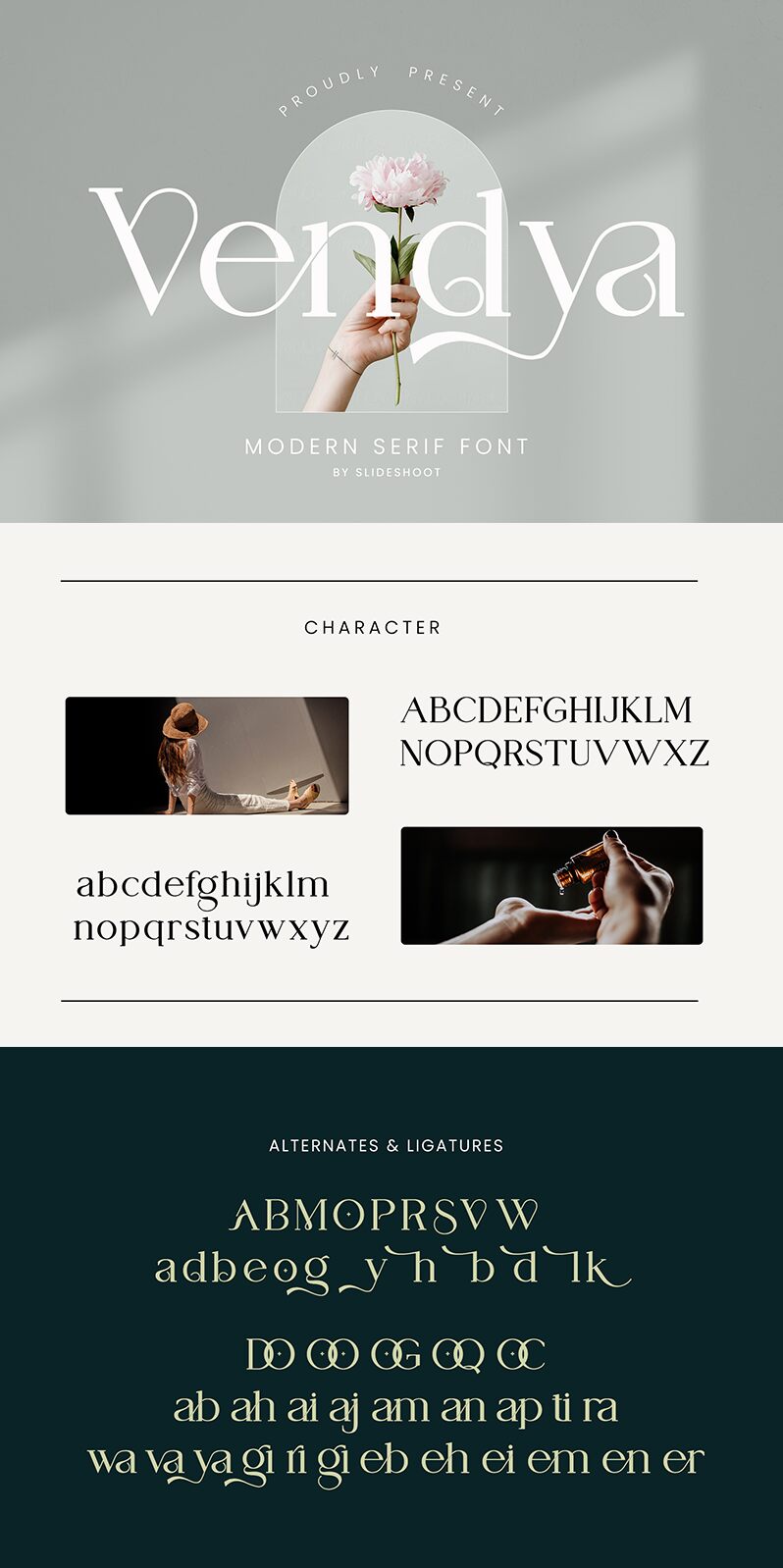
Vendya
Vendya font by Slide Shoot Type is a sophisticated serif font that stands out with its elegance and class. It attracts with a refined appearance inspired by classical forms for both the letters and the additions. Achieve attractive arrangements of text that capture attention through readability at any size. The font also communicates your message to the reader faultlessly.
Being free, this typeface can be employed in branding projects such as logo designs or packaging designs, book covers or magazines, posters, business cards, social media quotes, greeting cards, labels and tags. It also displays magnificently in invitations and menus especially those for restaurants and weddings.